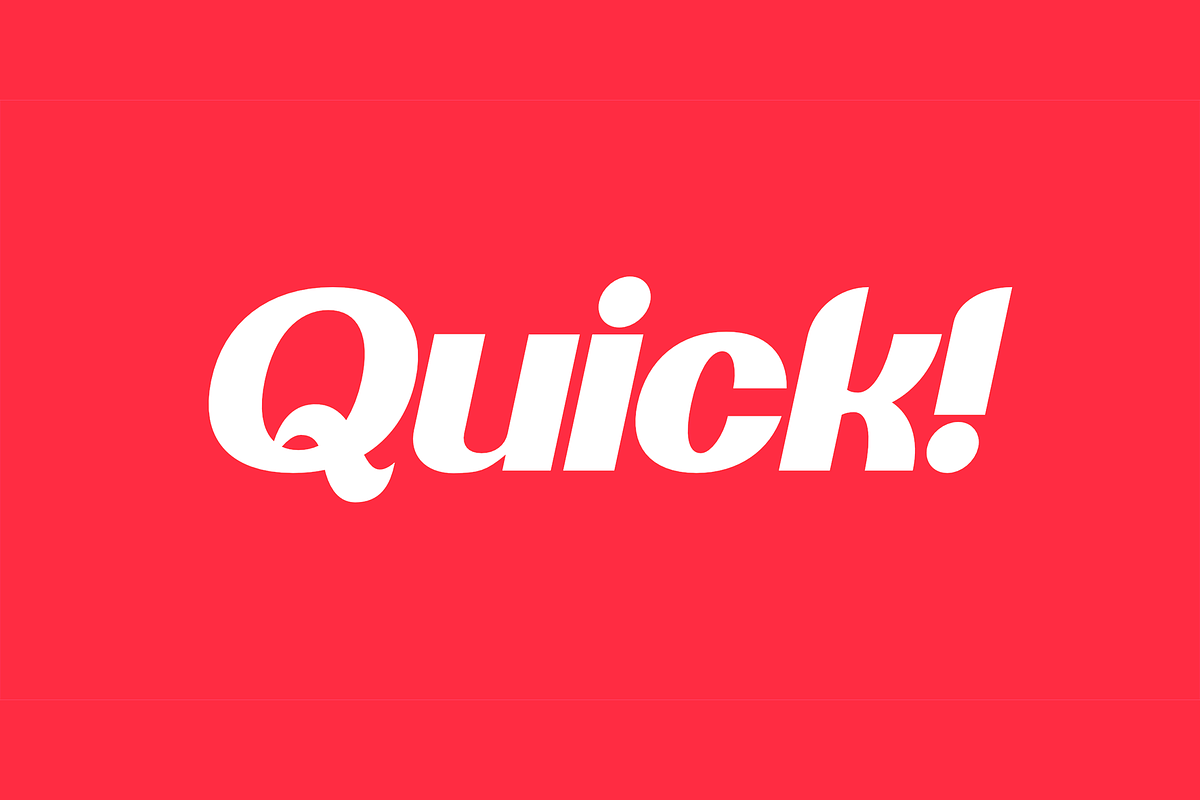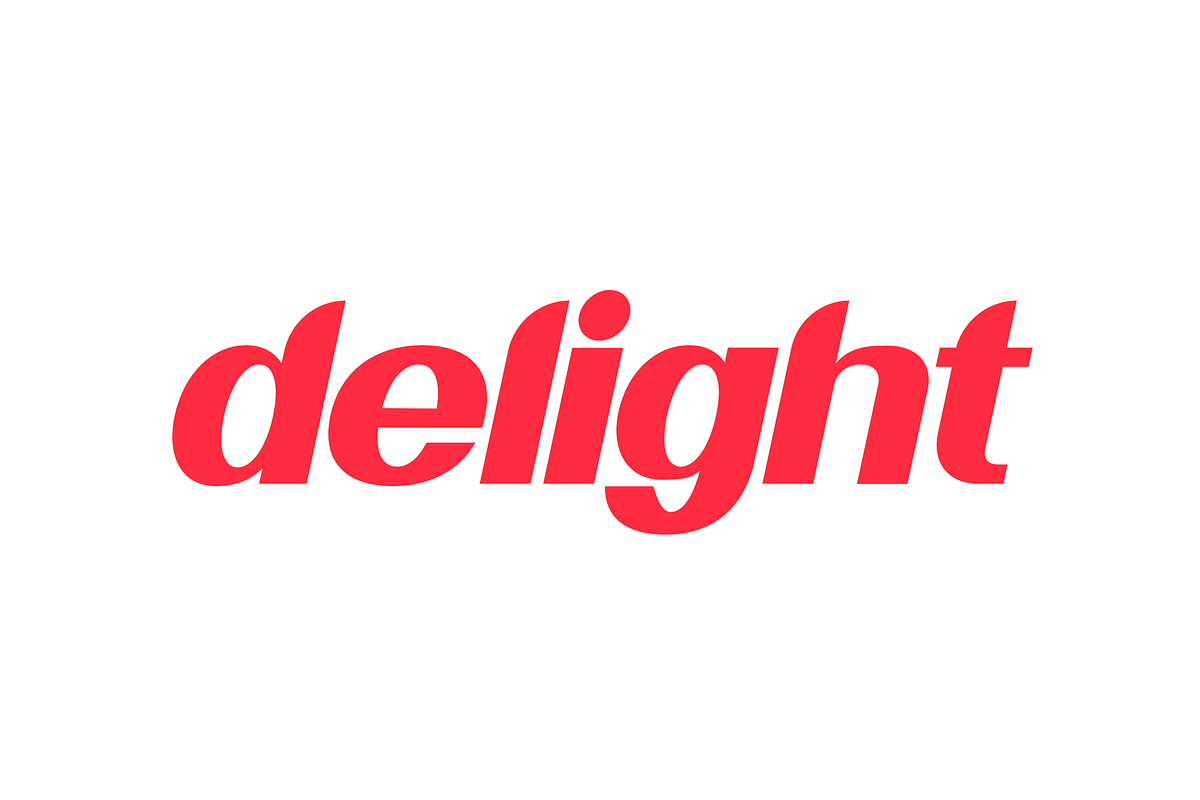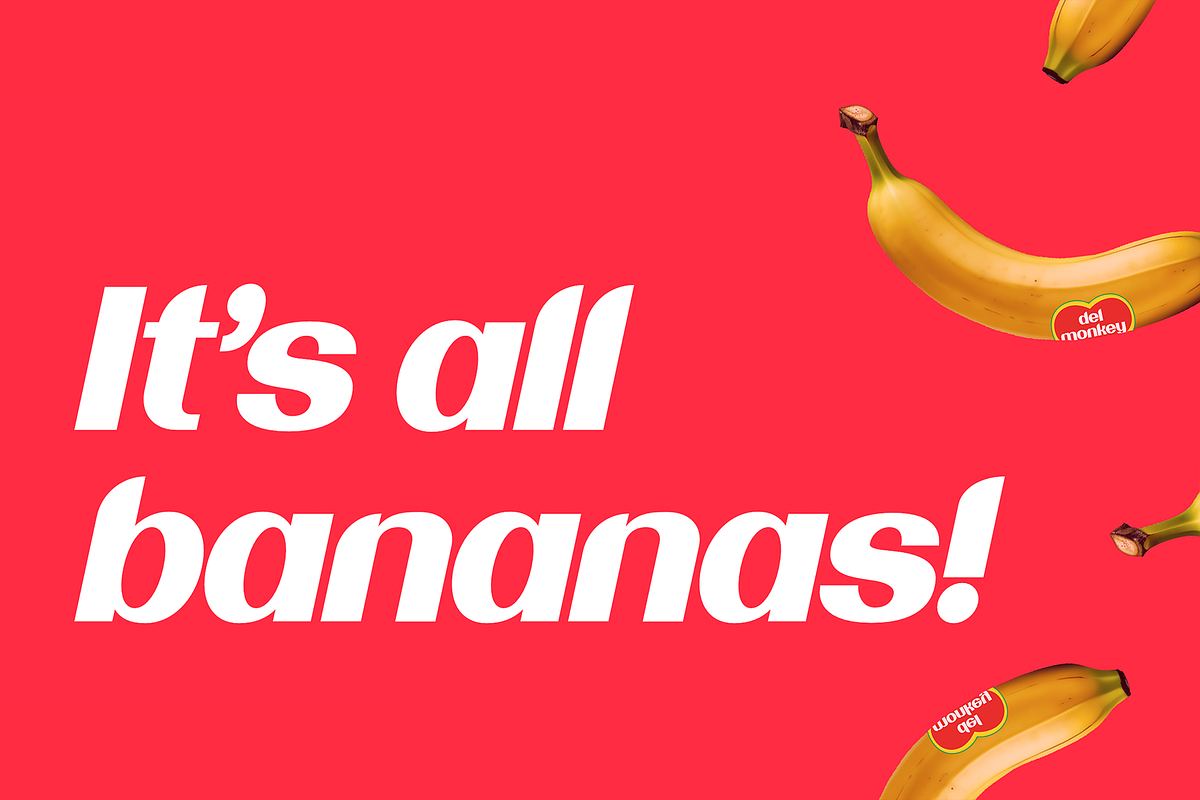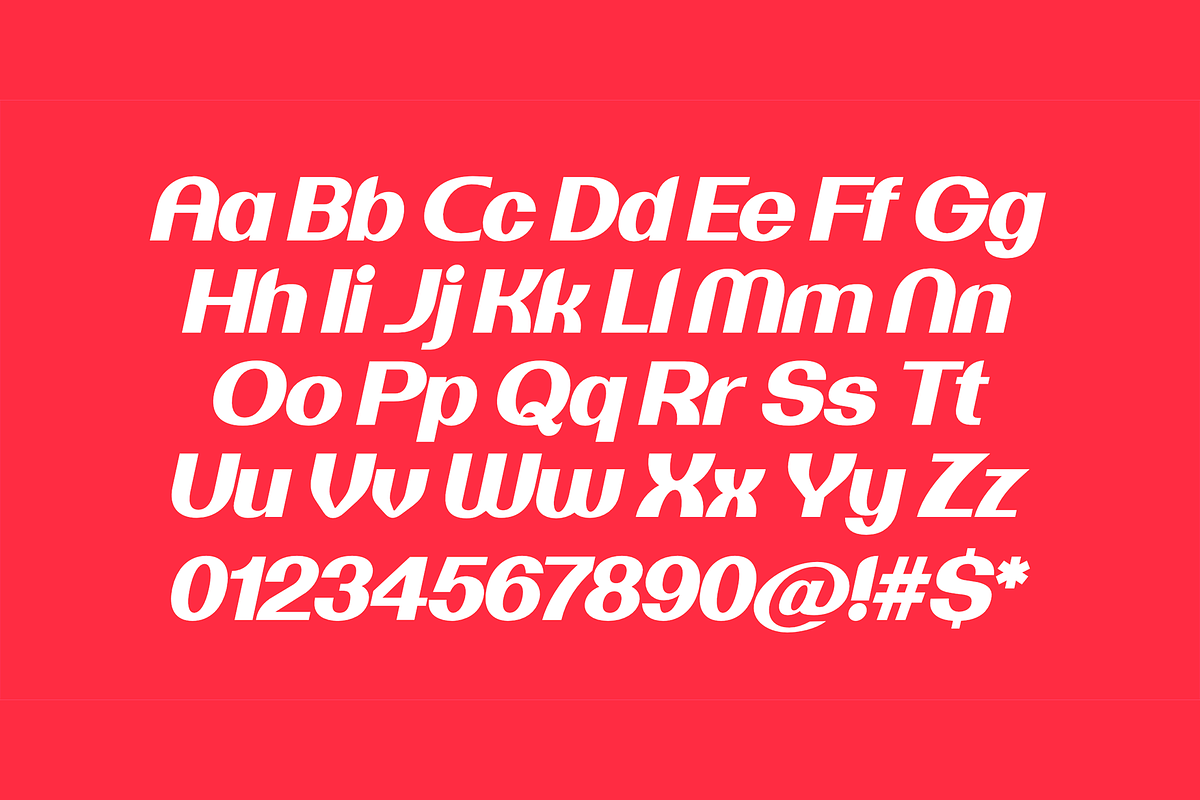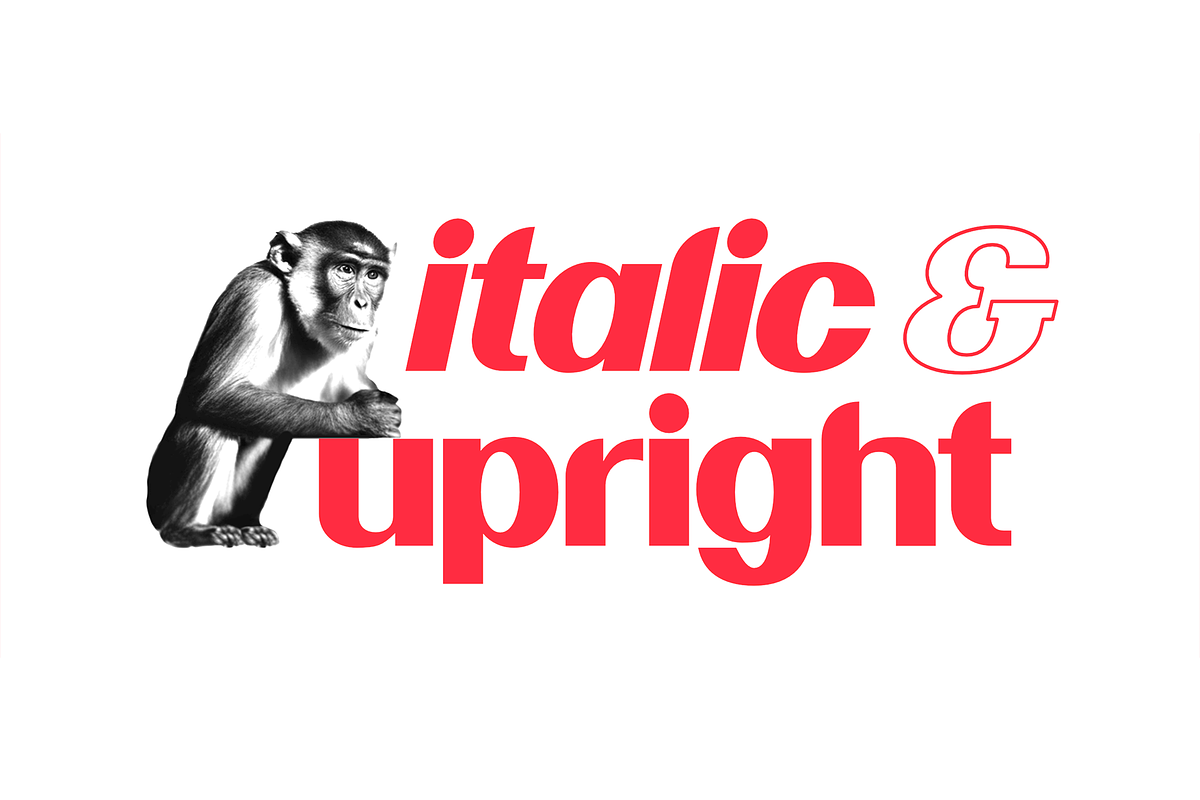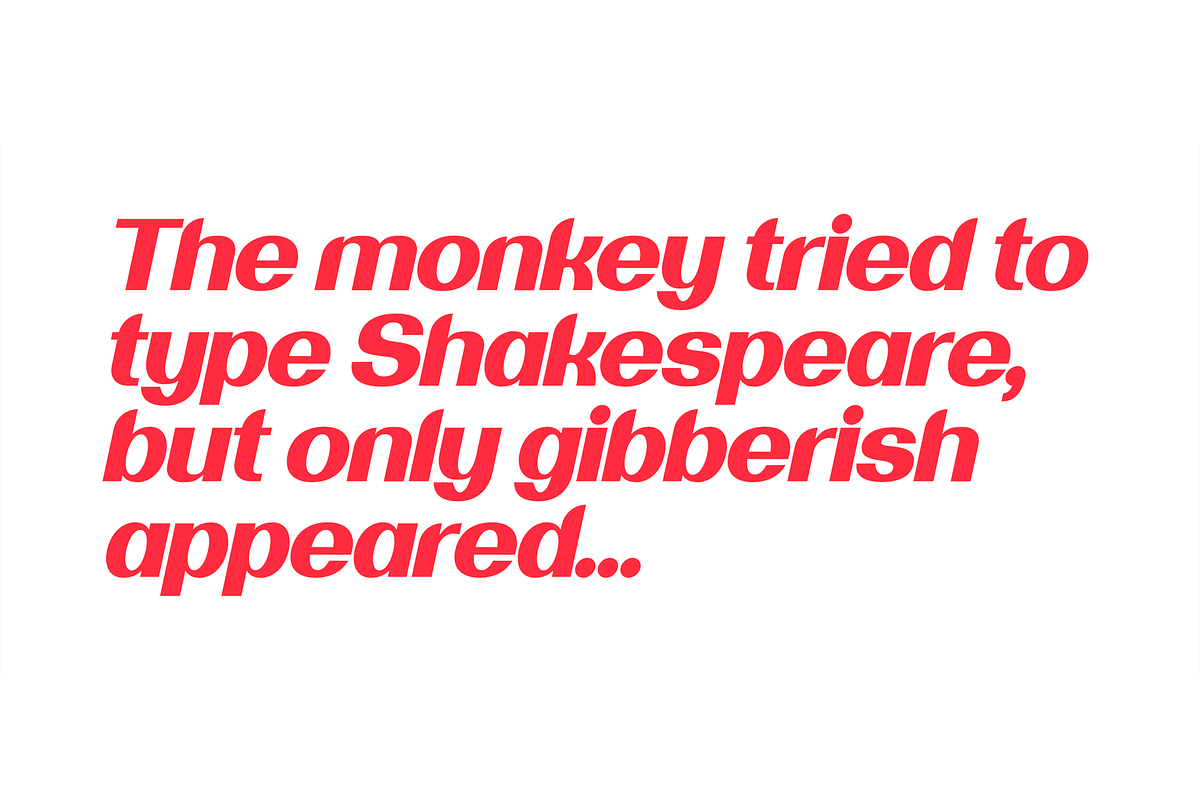
OTC Quick
OTC Quick is a modern sans serif display font characterized by its blend of geometric and organic shapes. It features oval counters and curved ascenders, creating a bold yet inviting look. The font is available in both upright and italic styles. Its design inspiration comes from the typography used on Frank Ocean's 'Blonde' album cover.